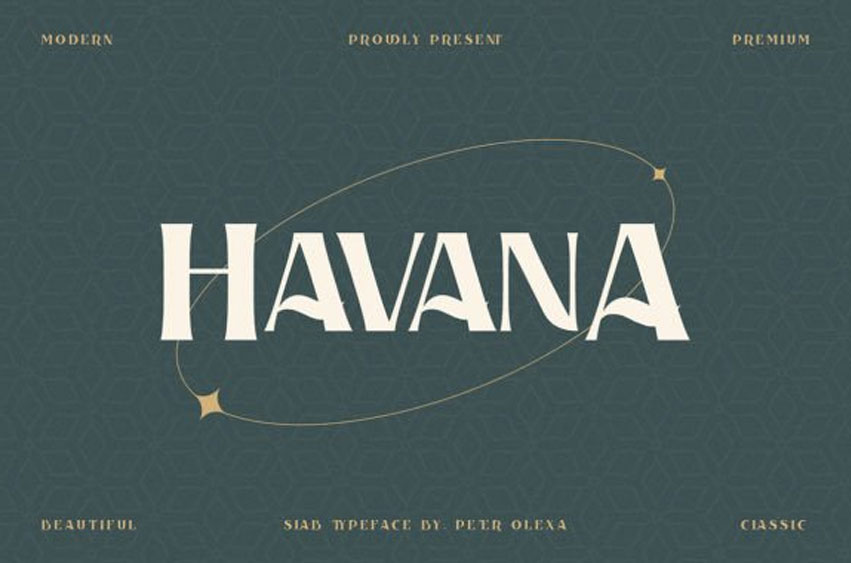
Havana Font is a retro serif font that captures the essence of a bygone era with its exquisite detailing and delicate serifs.
Its carefully crafted curves and lines evoke a sense of nostalgia, while the subtle variations in character width create a charmingly imperfect look. Ideal for creating a vintage feel with a touch of refinement.